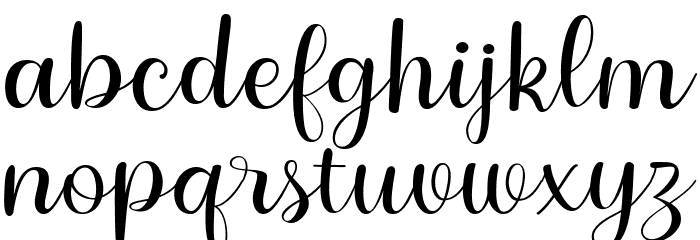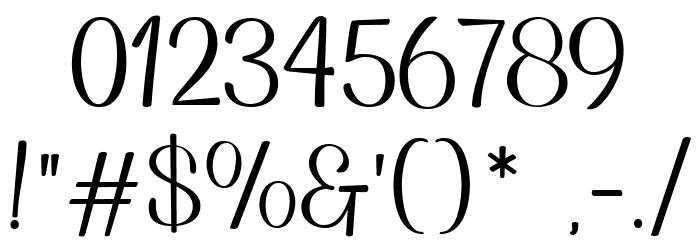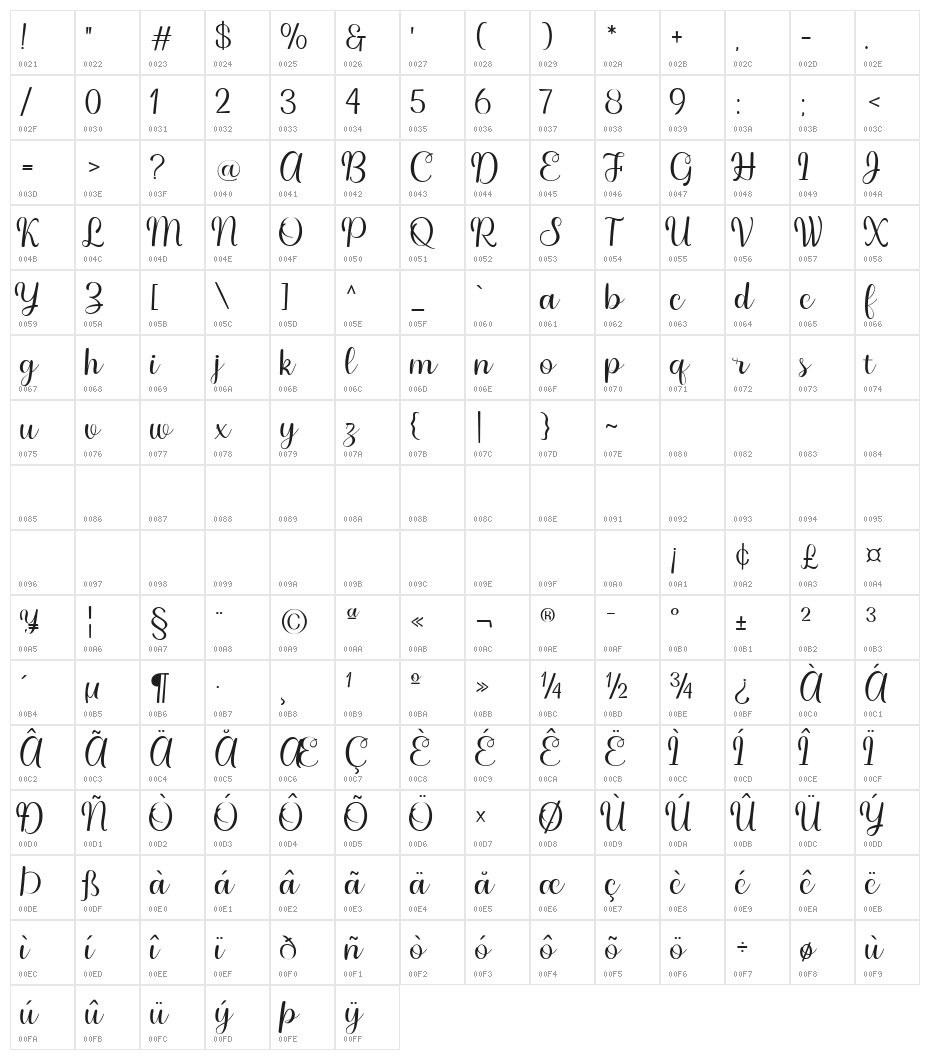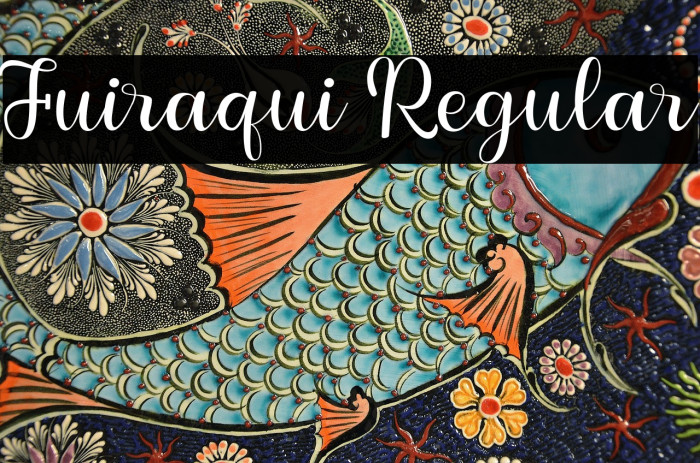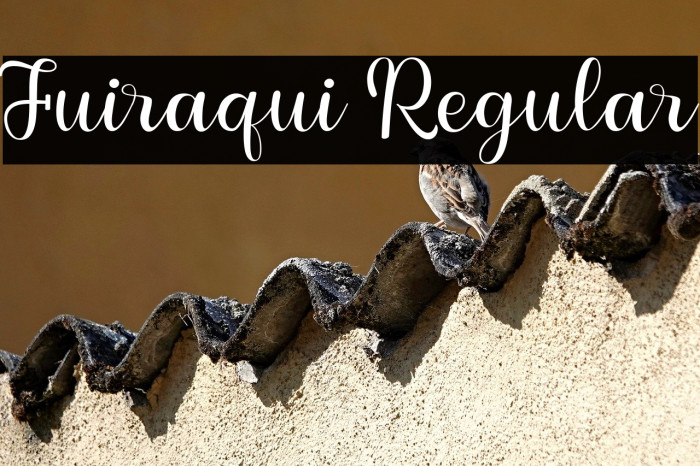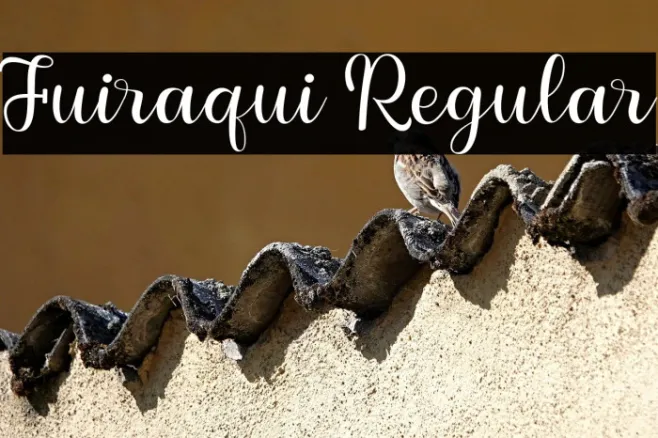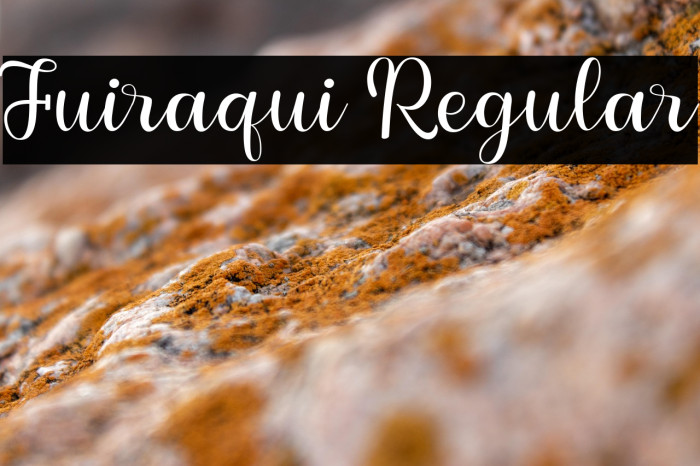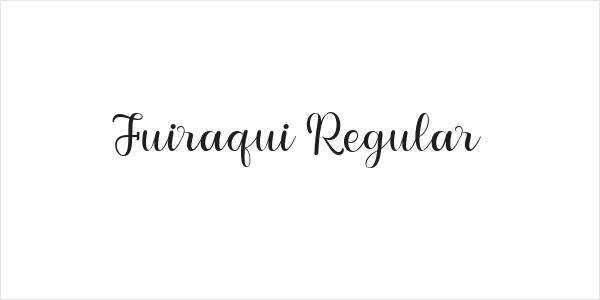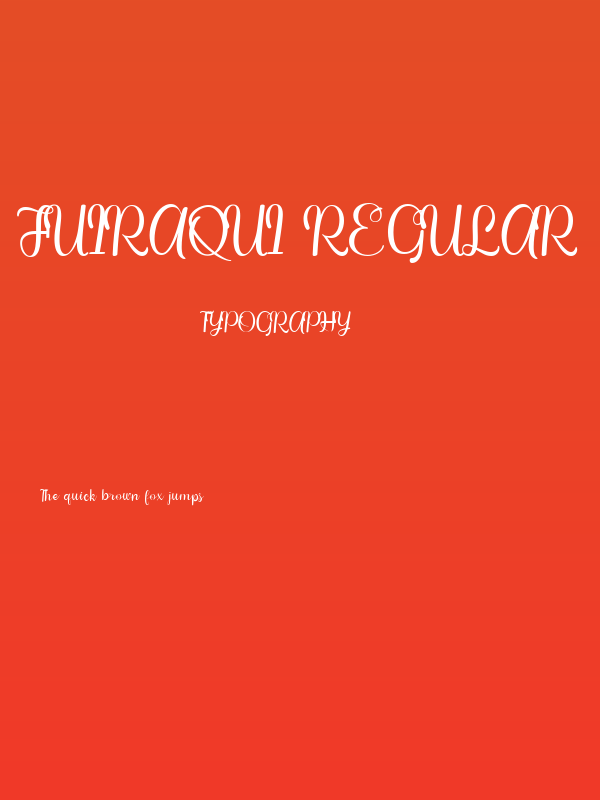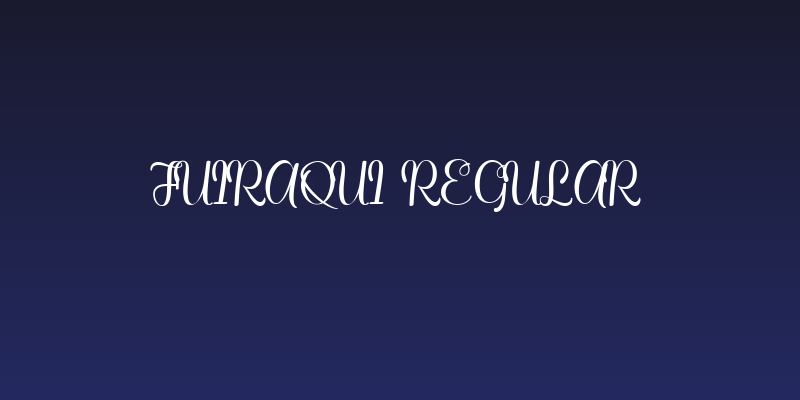
Fuiraqui Regular Font
This font features an elegant and flowing script style, characterized by its smooth, cursive strokes and graceful curves. The uppercase letters are distinct with their looping flourishes, while the lowercase letters maintain a consistent, connected flow, enhancing its handwritten appeal. The numerals are clear and stylish, complementing the overall aesthetic. Special characters are thoughtfully designed, maintaining the font's cohesive look. This typeface exudes a sense of sophistication and charm, making it ideal for projects that require a personal and artistic touch.
An elegant, flowing script font with graceful curves and a handwritten appeal.
- Font: Fuiraqui Regular
- Proposed Projects: Ideal for wedding invitations, greeting cards, branding, and elegant logos.
- Category: Script
- Overall Style: Elegant, Artistic
- Use Case: Logos, Invitations, Greeting Cards